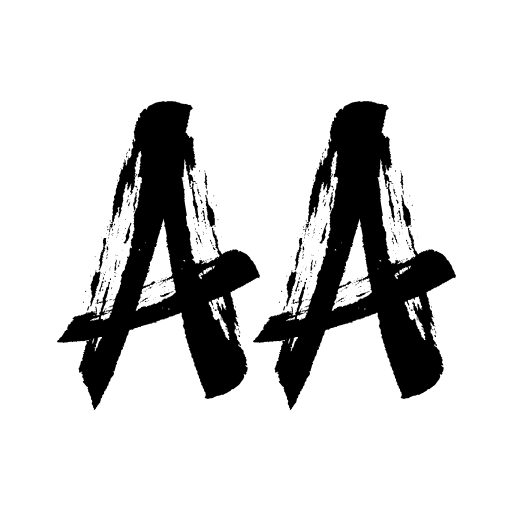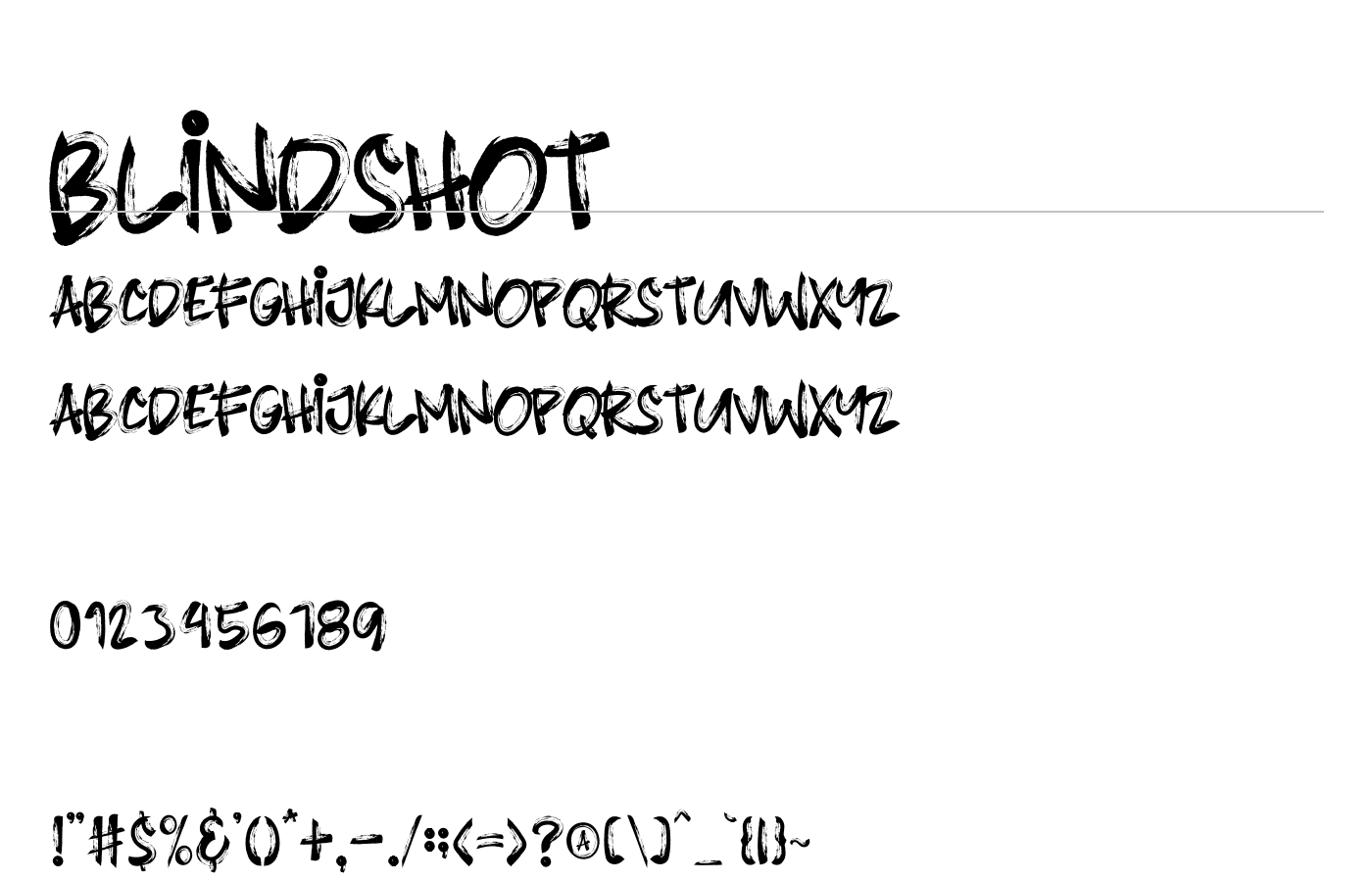
Blindshot is a bold, expressive handwritten font with a textured, brush-stroke style that creates an energetic and dynamic feel. Its irregular shapes and rough edges give it a raw, artistic personality, making it perfect for creative projects, edgy branding, and eye-catching headlines that aim to stand out with a lively, hand-crafted vibe.
Blindshot Font
About Blindshot Font